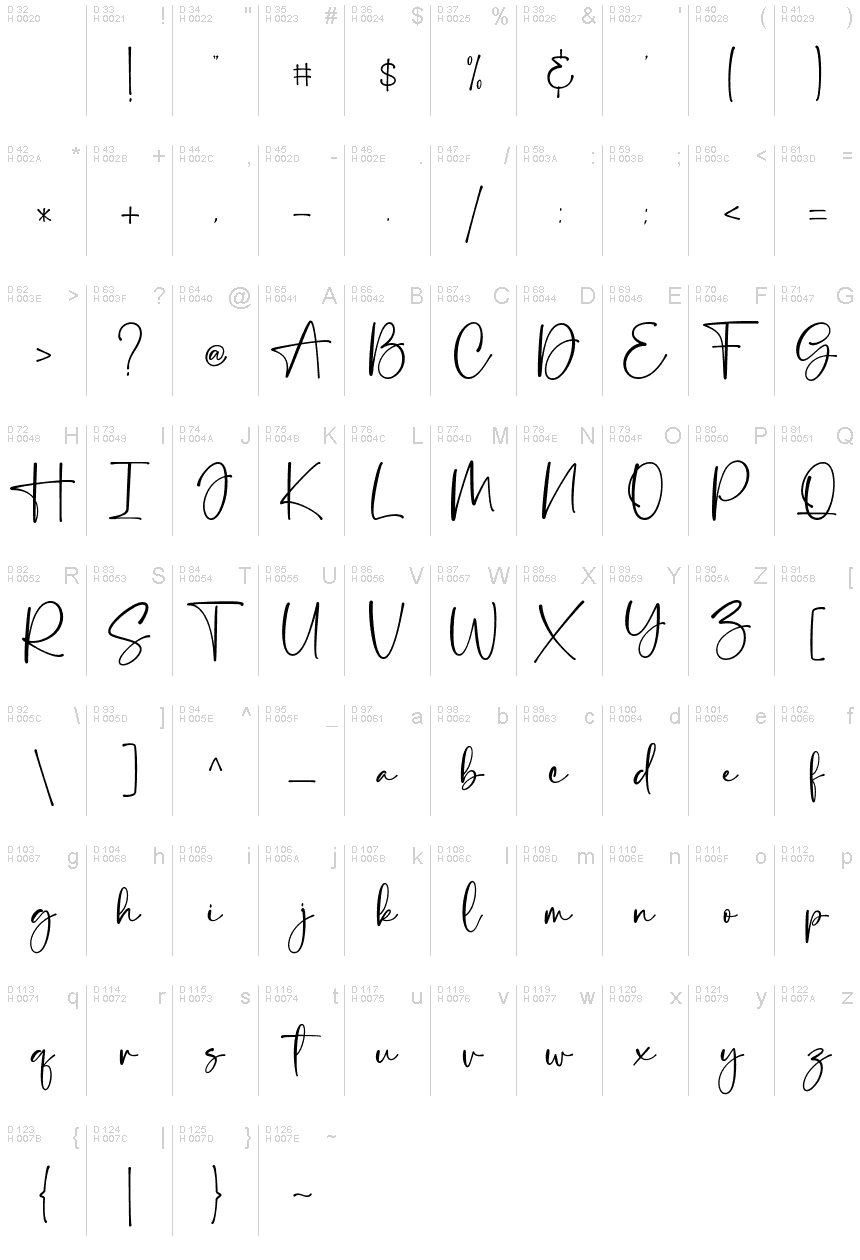
Dream Girl
Dream Girl, designed by Ramli Setiadi, offers a touch of personal charm with its handwritten style and semi-light weight. The fluidity of its strokes and the elegance of its curves evoke a sense of creativity and intimacy, perfect for projects that require a gentle, personalized touch. Its aesthetic appeal lies in the organic flow that resembles elegant cursive writing, suggesting a blend of sophistication and whimsical flair.
Captivating in its simplicity yet rich in character, Dream Girl is versatile enough to enhance wedding invitations, branding materials, or editorial designs where a human touch is desired. This font's inviting appearance invites viewers into whatever narrative or message it presents. Embrace the allure of Dream Girl for your next creative endeavor and let its unique style speak volumes.